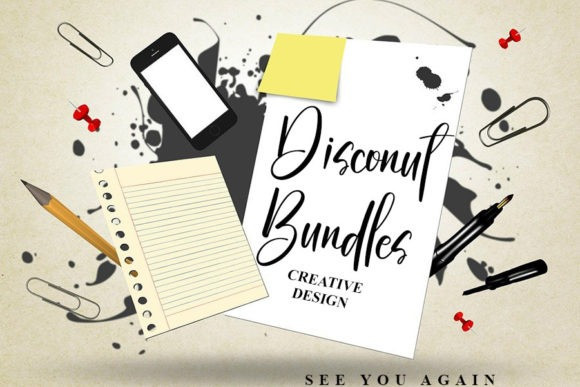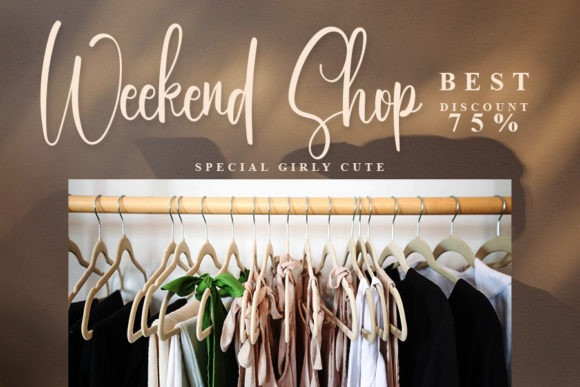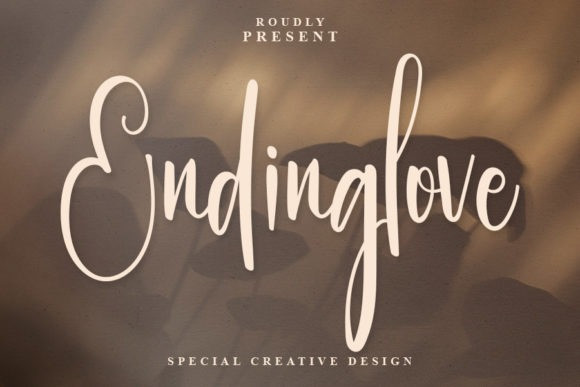
Endinglove Font
Endinglove Font is an elegant script font with a contemporary atmosphere and impeccable form, inspired by timeless classic calligraphy. Not too thin and not too thick, balanced and varied, this font was designed to enhance the beauty of your projects.